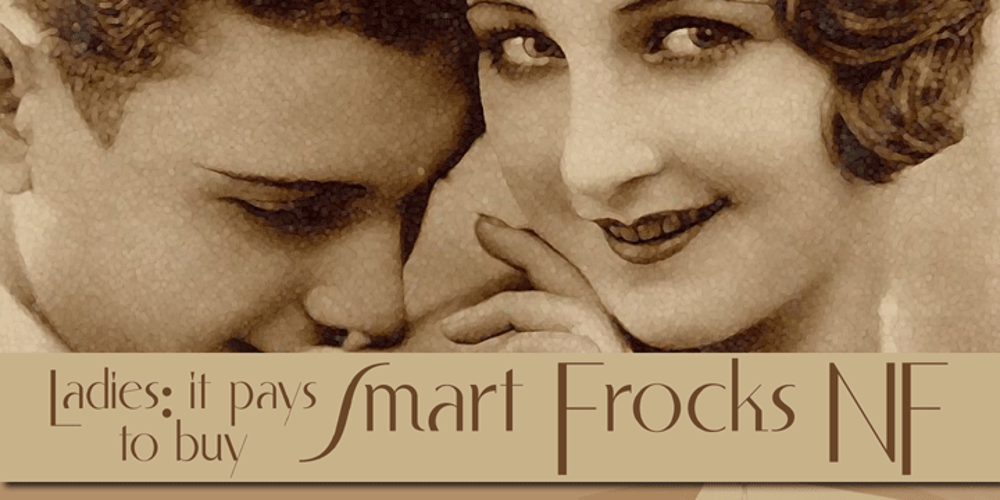
Smart Frocks NF Font Family was designed by Nick Curtis and published by Nick’s Fonts. Smart Frocks NF contains 1 styles and family package options. A sign in a London storefront, ca. 1930, pitching—surprise!—Smart Frocks provided the visual cues for designing this typeface. Singularly stylish, hip and haughty and decidedly Deco, this is the smart font to use! This font contains the complete Latin language character set (Unicode 1252) plus support for Central European (Unicode 1250) languages as well.